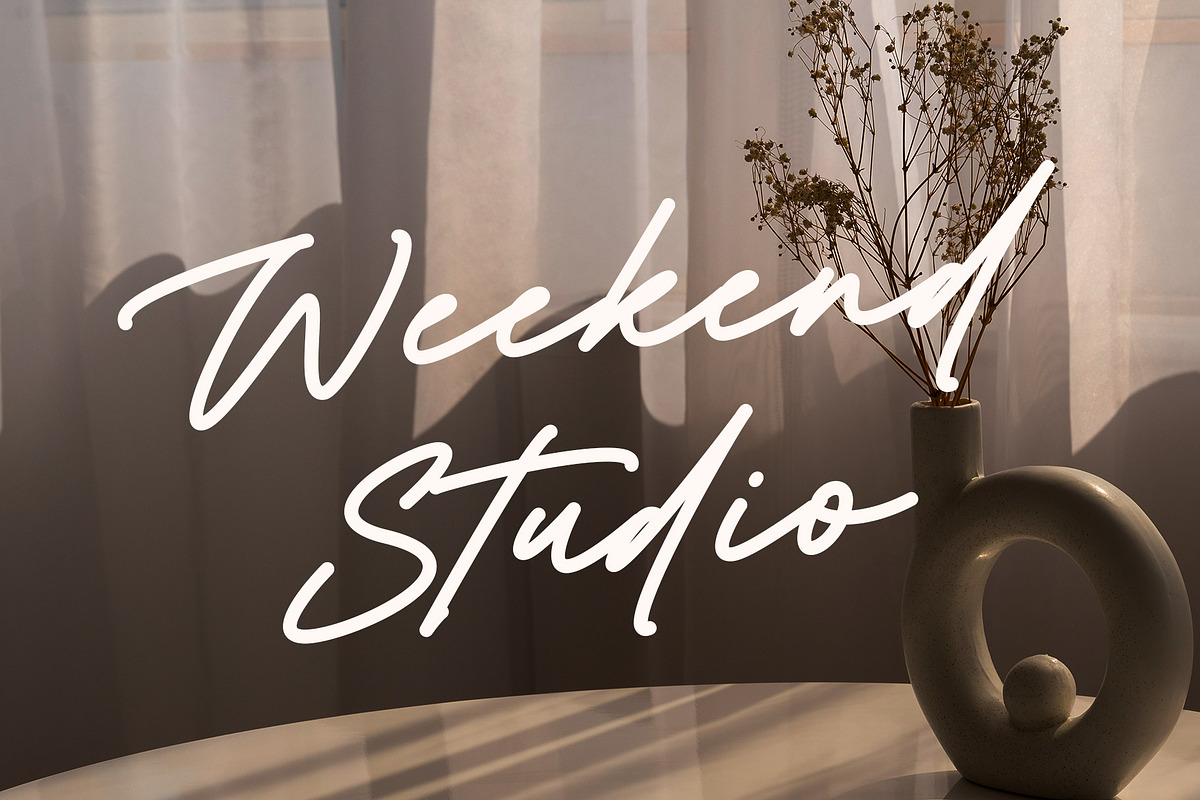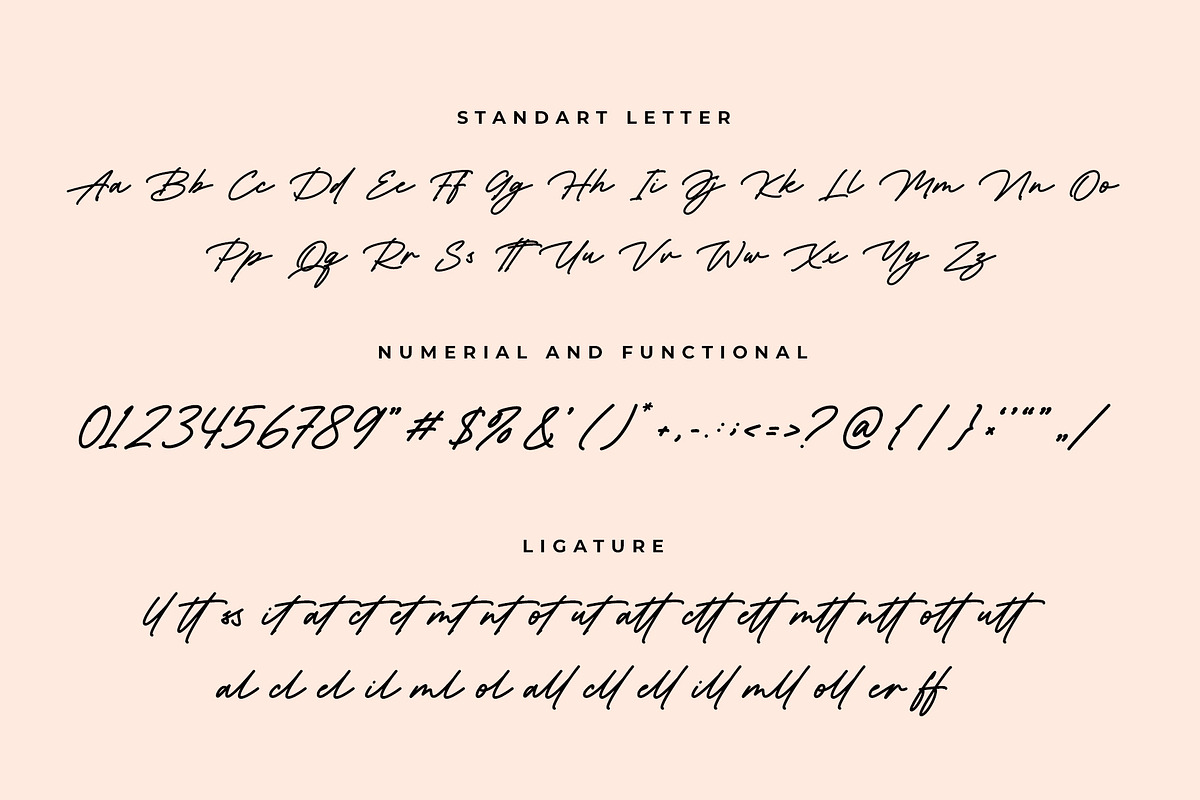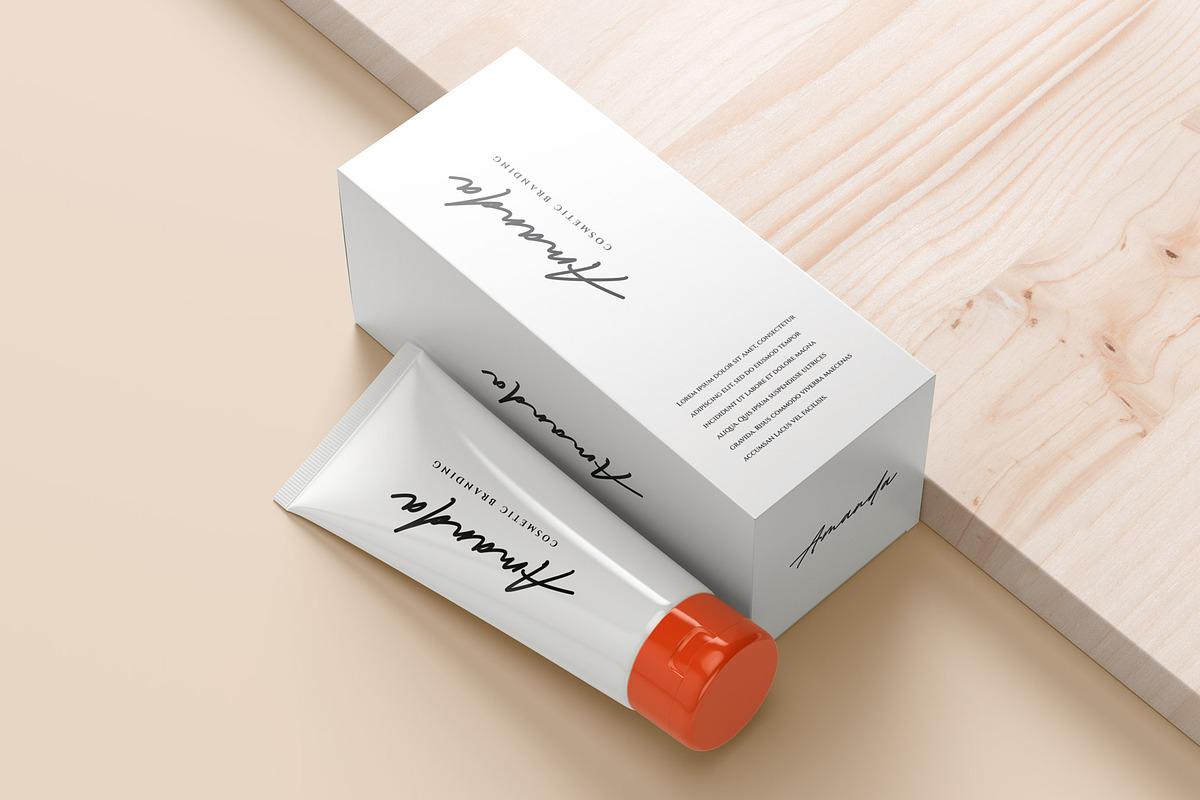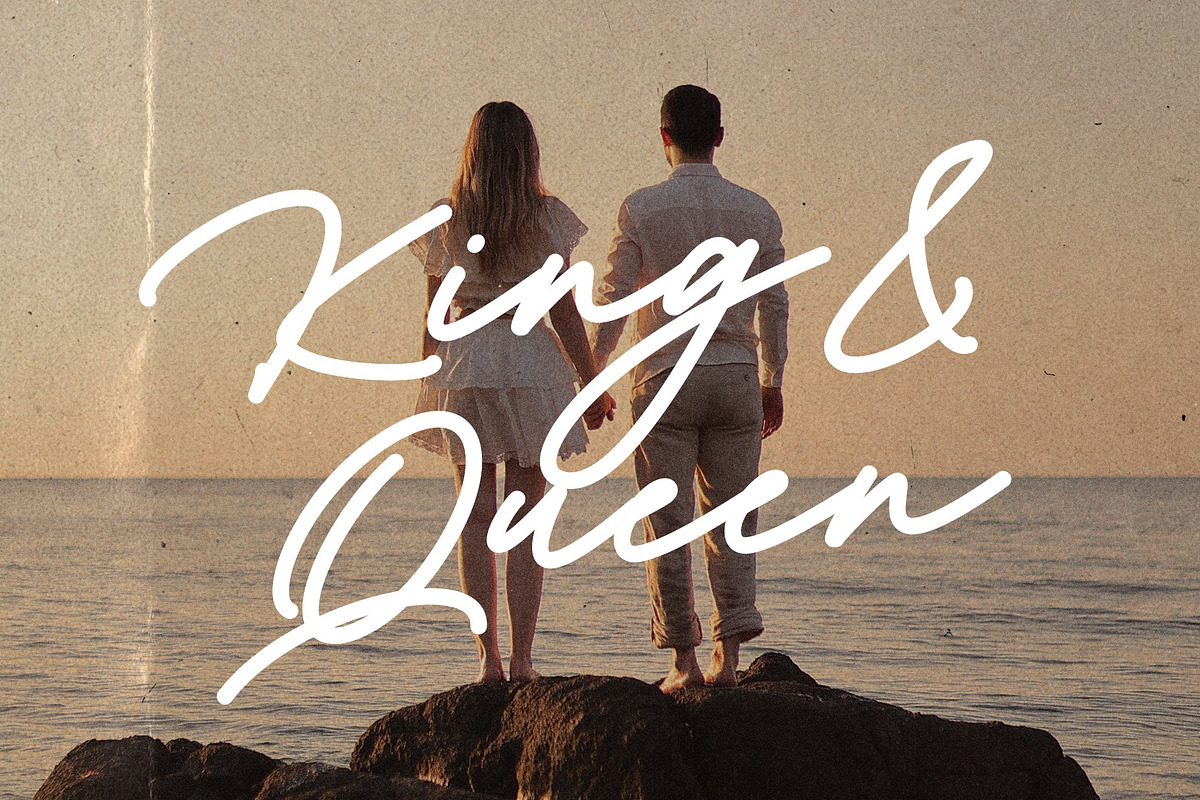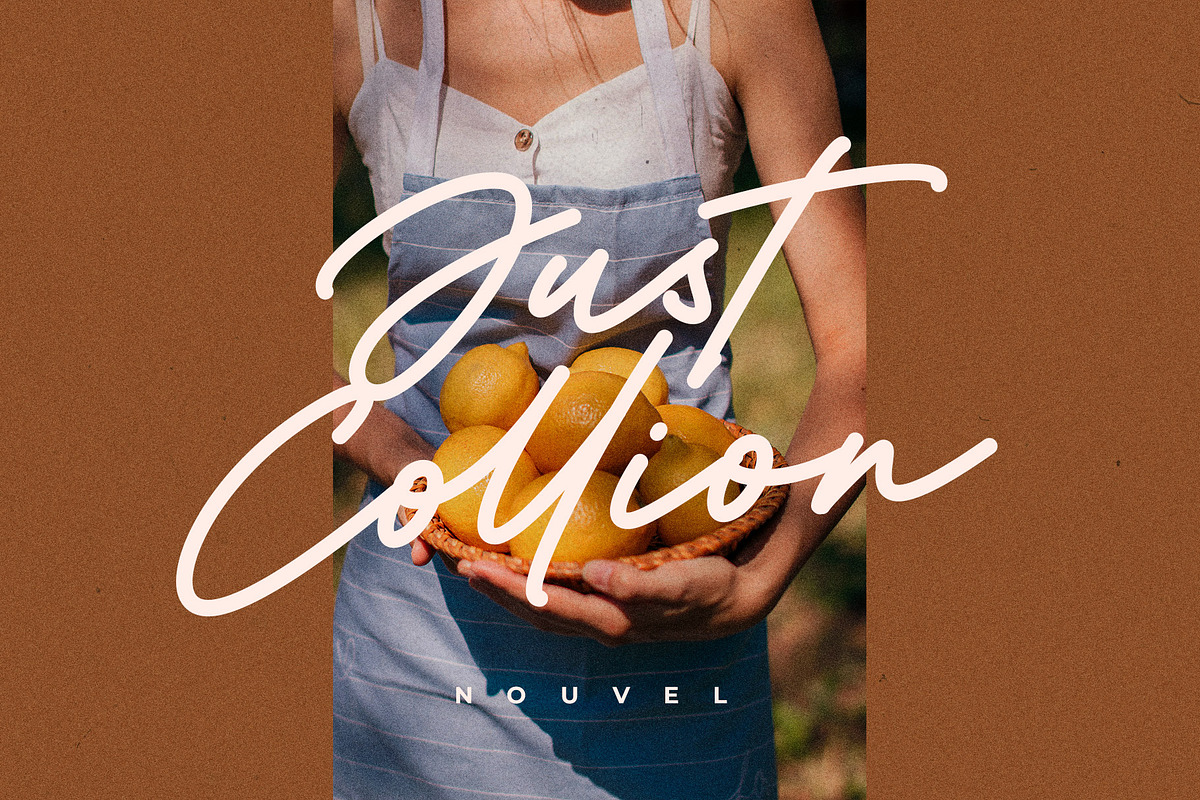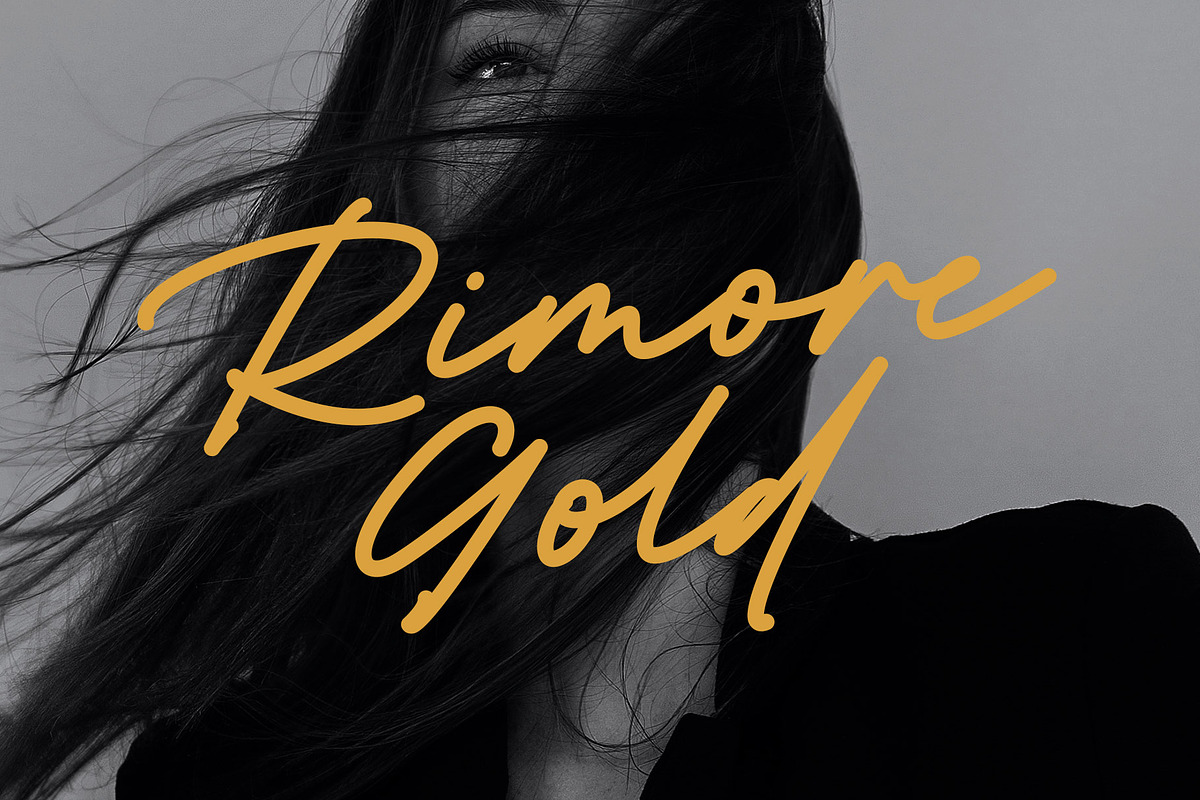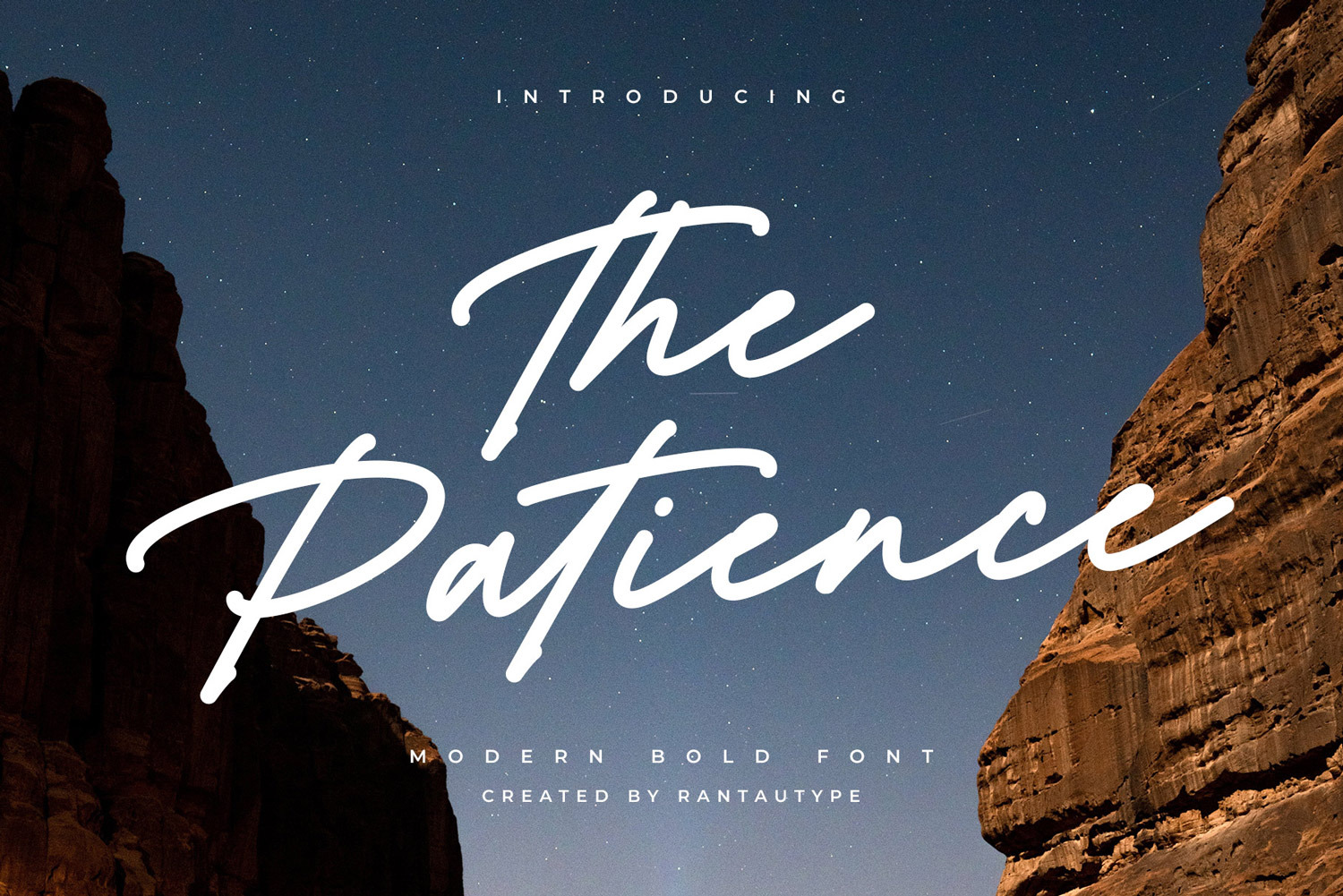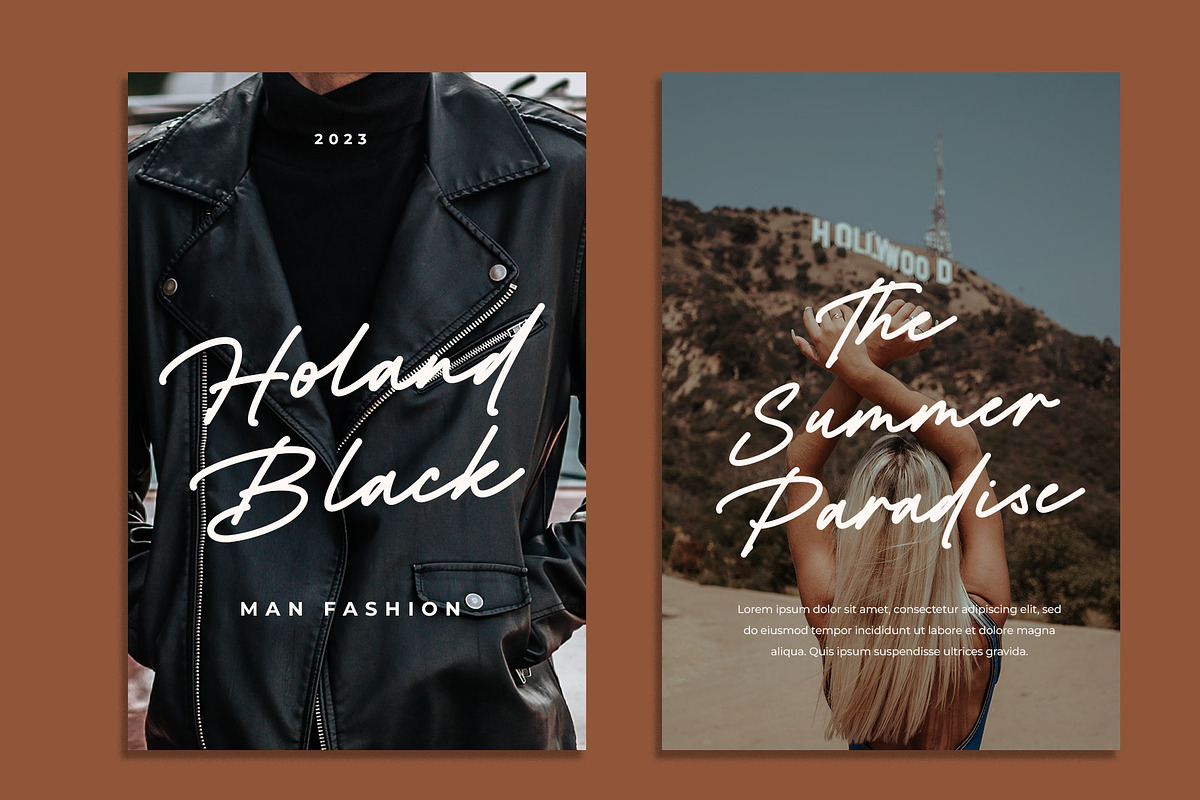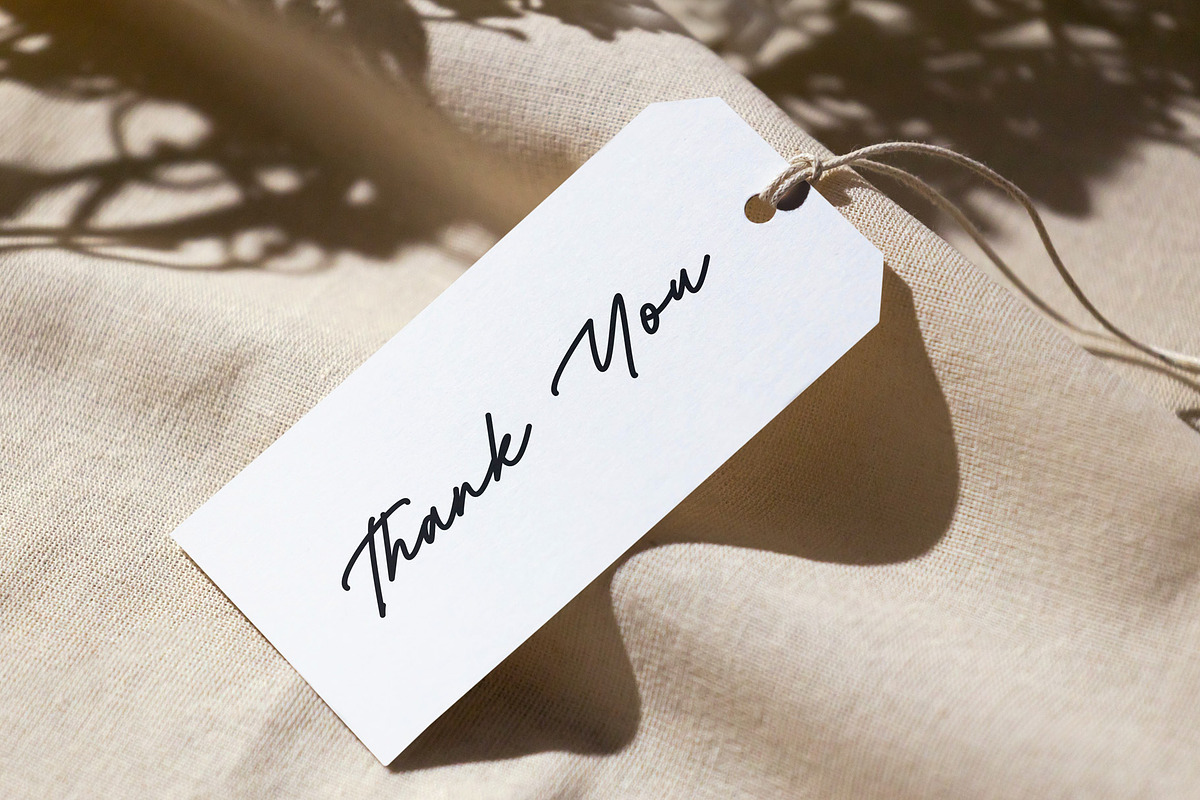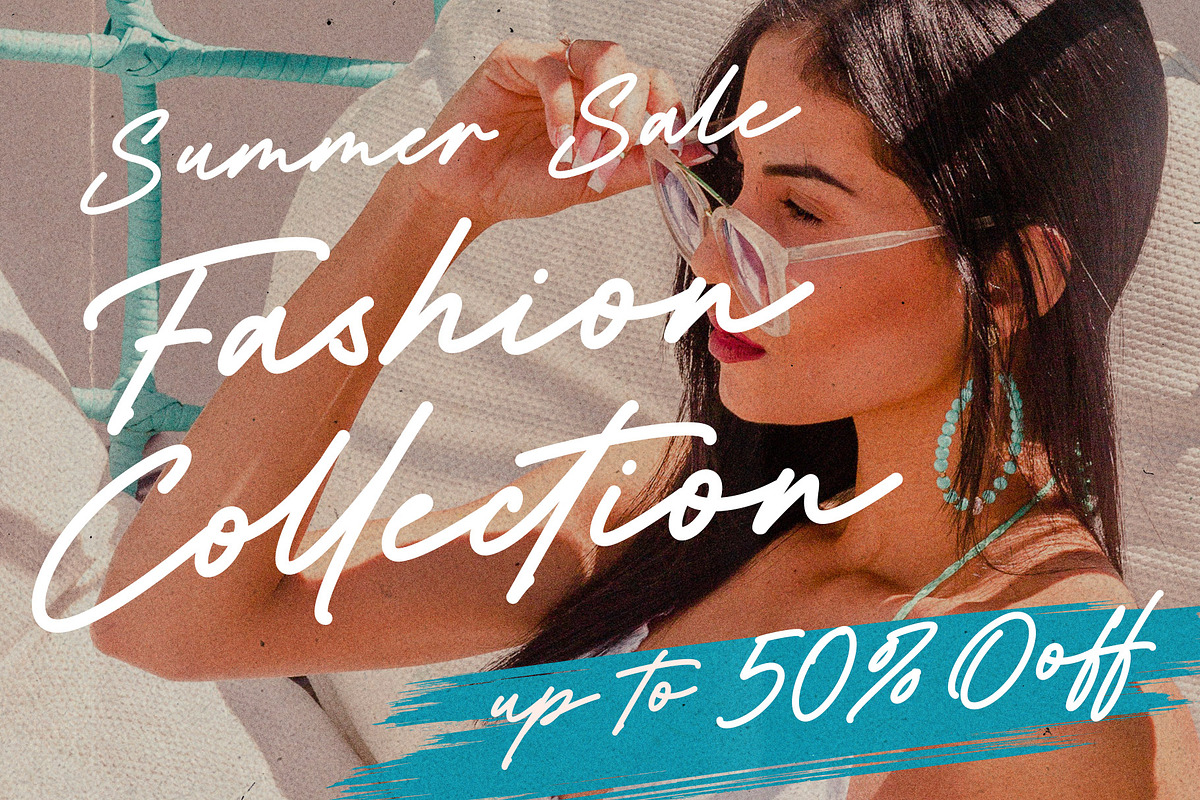
The patience Modern Bold Font
Hi Ladies and Gentleman ! Proudly present stylish handwritten font “The patience” for you business.
The patience - modern style font which can be interpreted professional. we keep this font looks modern, readable, stylish, catchy and easy to use.
The patience - is the great choice for watermark on photography, branding, wedding event, signature or signature logo design, quotes, album cover, magazine, business card and many other design project. The patience here to make your work to high level!!!
- Standar character A-Z and a-z
- Multilinggual support